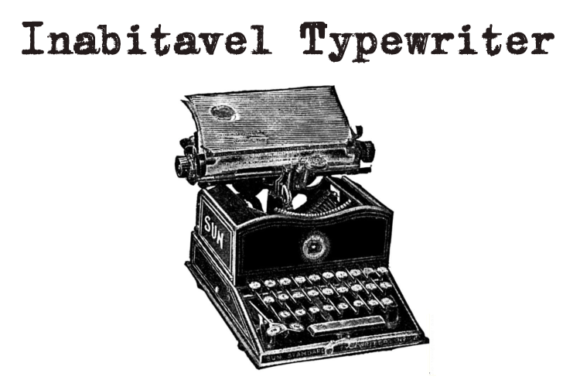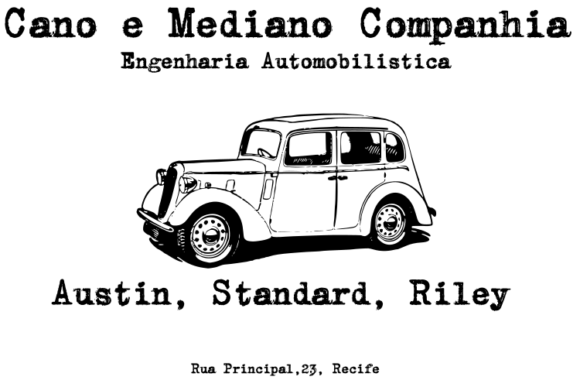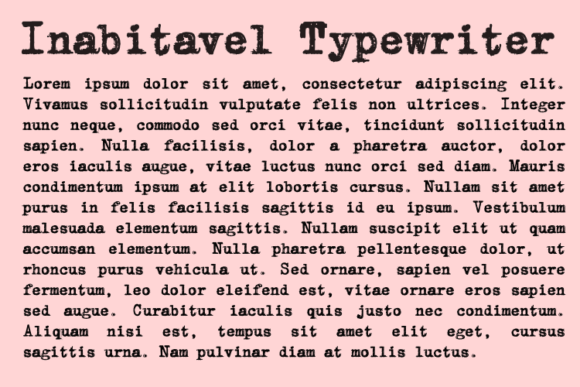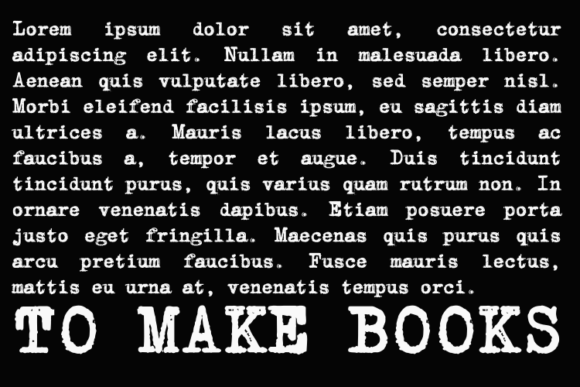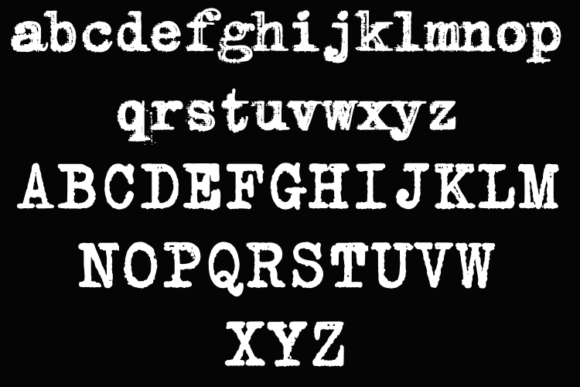
The Art of Timeless Typing: Unveiling the Inabitavek Typewriter Font
As a designer, there’s something special about creating a piece that feels like a piece of history. The creaky sound of an old typewriter, the tactile feel of the keys, and the nostalgic charm of a bygone era – it’s a sensory experience that never gets old. And for those who want to capture that essence in their designs, the Inabitavek Typewriter Font is a game-changer.
This unique typewriter font design is a masterclass in recreating the look and feel of older machines. With its erased and much-inked style, it’s perfect for adding a touch of vintage charm to any design project. Whether you’re working on a branding campaign, a poster, or a website, the Inabitavek Typewriter Font is a valuable tool in your creative arsenal.
Inabitavek Typewriter Font Key Features
- Unique Characteristics: This font features a distressed, worn look, reminiscent of old typewriters, with subtle imperfections and texture, adding a touch of nostalgia and character to any design.
- Style Variations: Inabitavek Typewriter Font includes several style variations, including regular, bold, italic, and bold italic, allowing designers to experiment with different looks and moods.
Inabitavek Typewriter Font Review
I recently had the chance to work with the Inabitavek Typewriter Font, and I must say it’s a unique and intriguing choice for designers looking for a retro vibe. ✨ The font’s distressed texture and worn look give it a sense of authenticity, making it perfect for projects that need a nostalgic feel.
Here are some of the things I like about the Inabitavek Typewriter Font:
- ✨ The font’s texture and imperfections add a layer of depth and visual interest to designs.
- ✨ The font is highly customizable, allowing designers to adjust the level of wear and tear to suit their needs.
- ✨ The font is available in a range of weights and styles, making it suitable for a variety of design applications.
However, I did encounter a few limitations during my review:
- ⚠️ The font can be difficult to read in certain contexts, particularly at small sizes or in complex layouts.
- ⚠️ The font’s distressed texture can sometimes make it challenging to achieve consistent typography.
- ⚠️ The font’s availability in certain languages and character sets may be limited.
Overall, the Inabitavek Typewriter Font is a solid choice for designers looking for a unique and retro aesthetic. While it may have some limitations, its versatility and customization options make it a valuable addition to any design toolkit.
Tips for Getting the Most Out of Inabitavek Typewriter Font
1. Experiment with different font sizes and colors to create a unique look.
2. Use the font to add a touch of nostalgia or retro flair to your design.
3. Combine the font with other design elements, such as images and graphics, to create a visually appealing design.